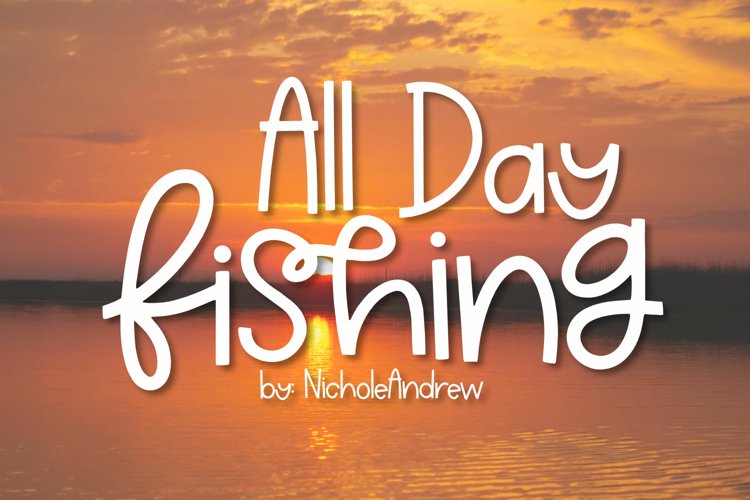
All Day Fishing
by NicholeAndrew
The perfect font for your craft projects! Includes a handful of alternates and pairs for a true handwritten look & feel.